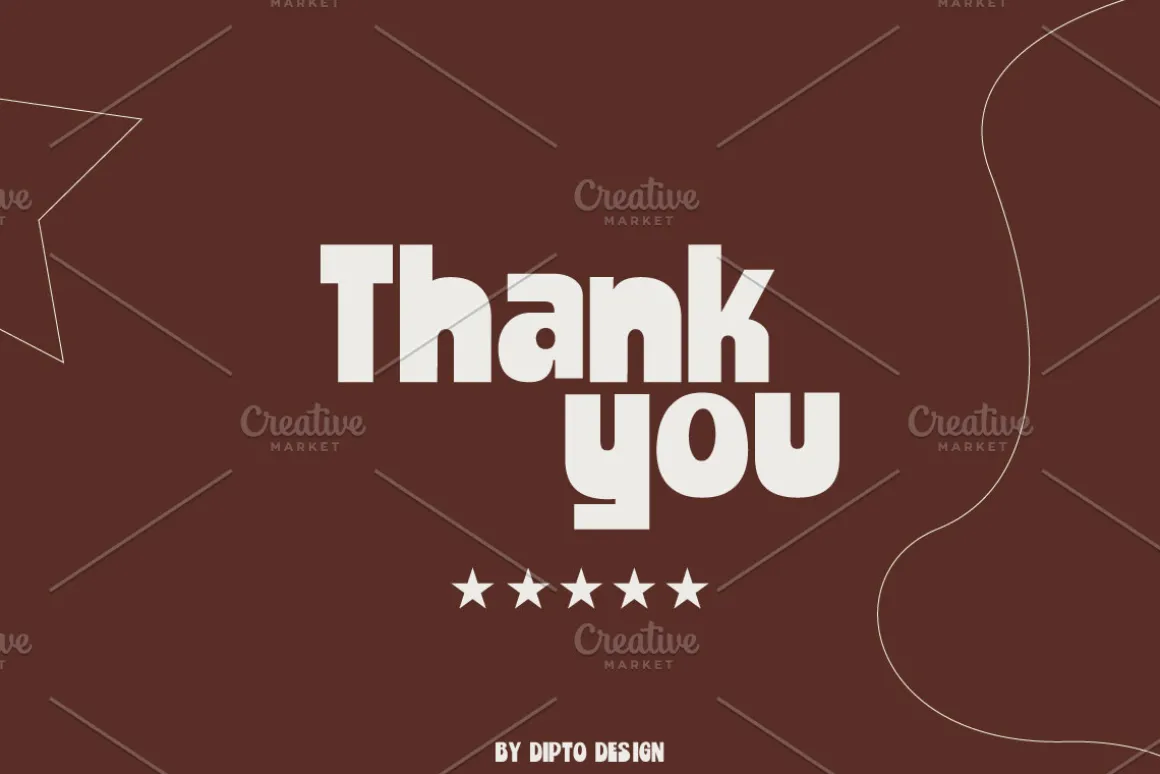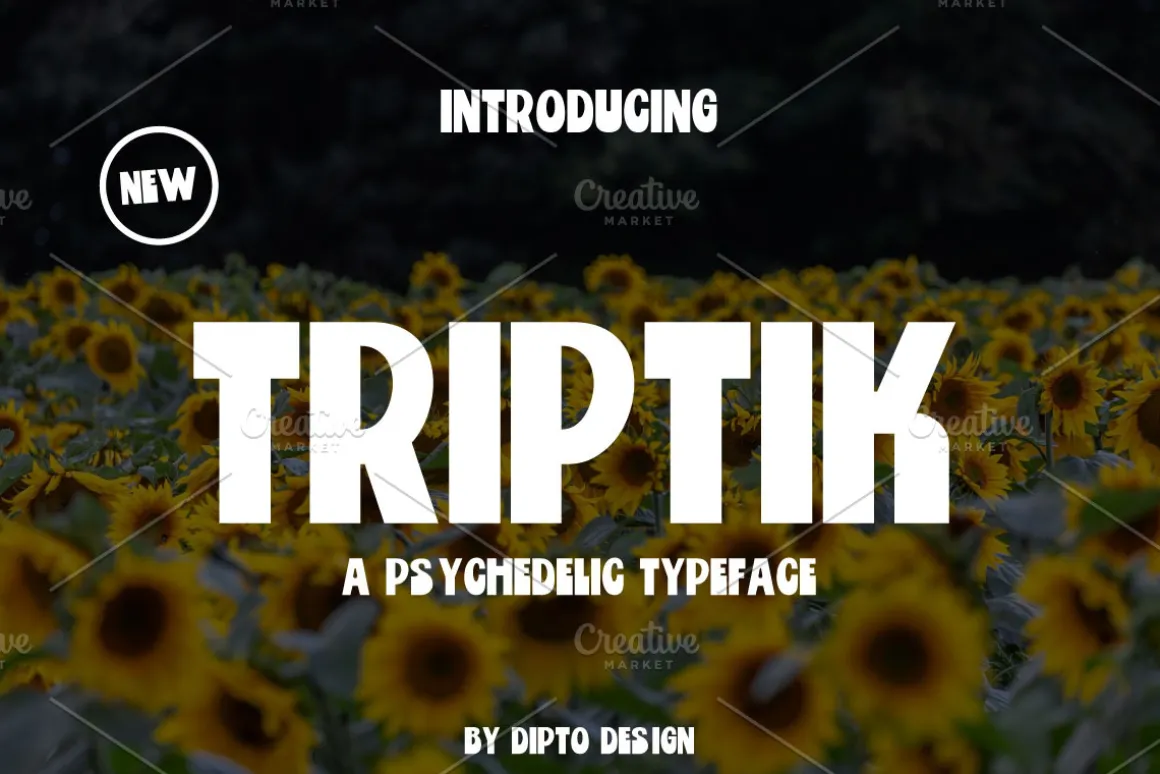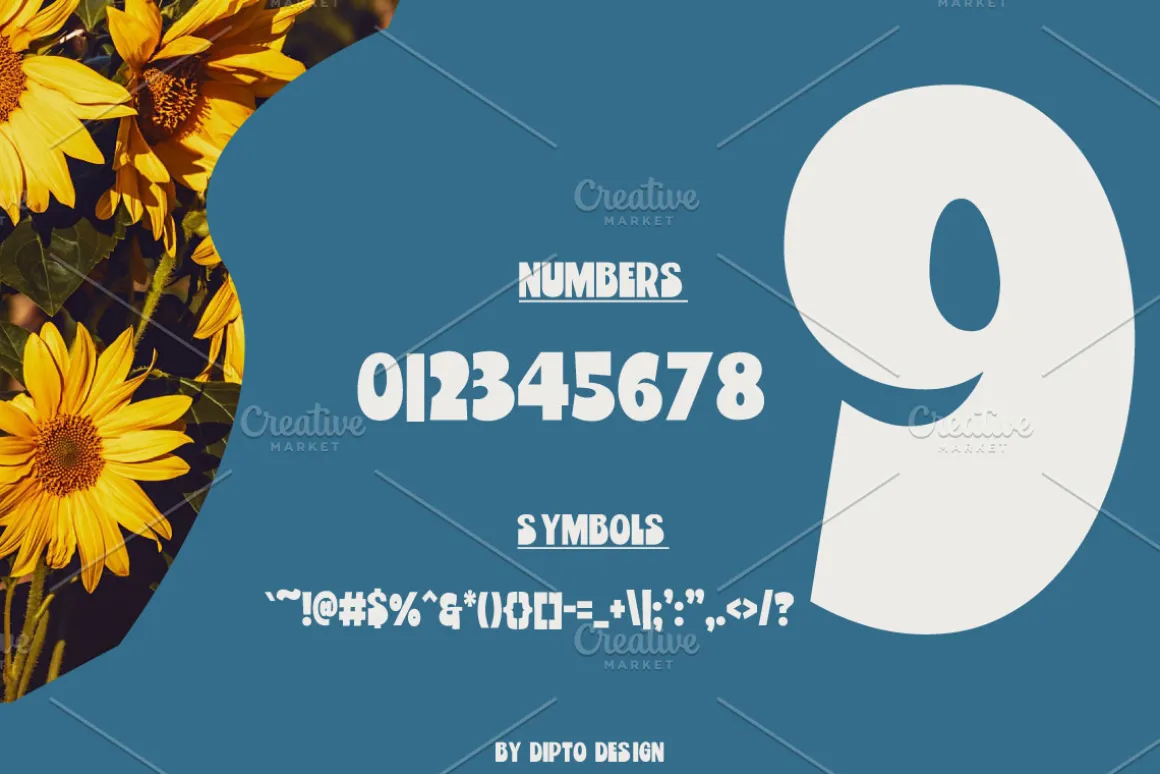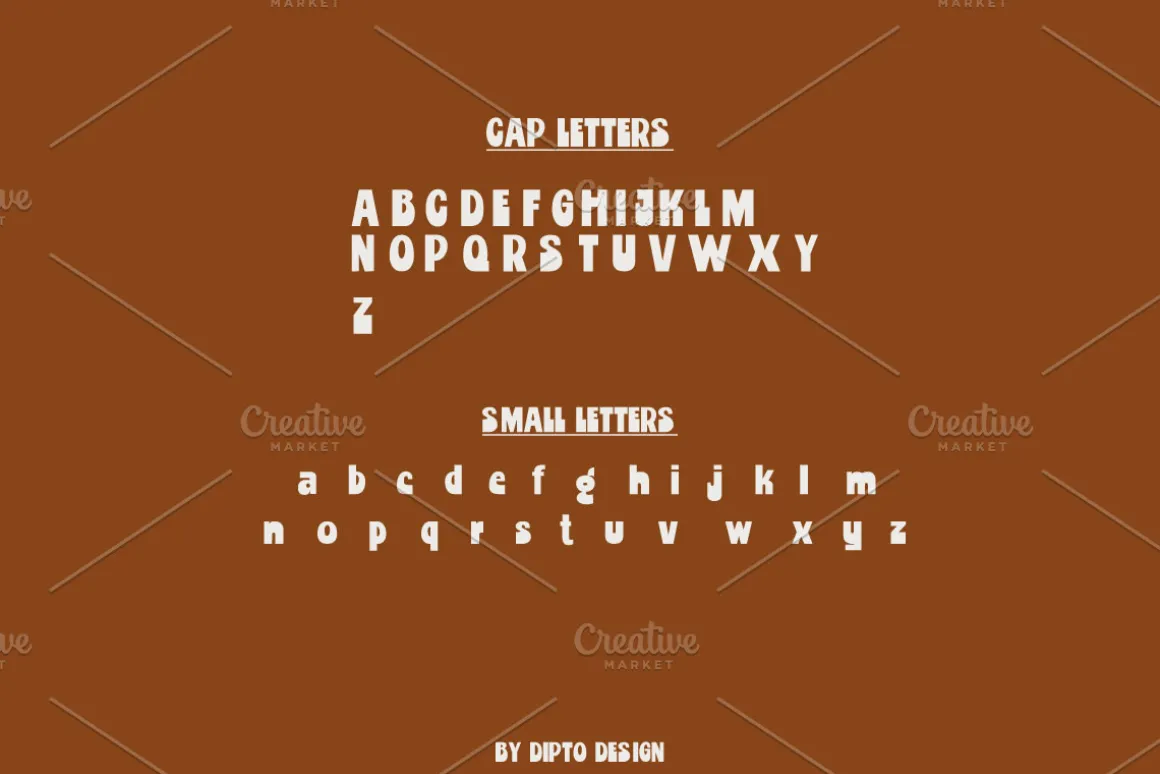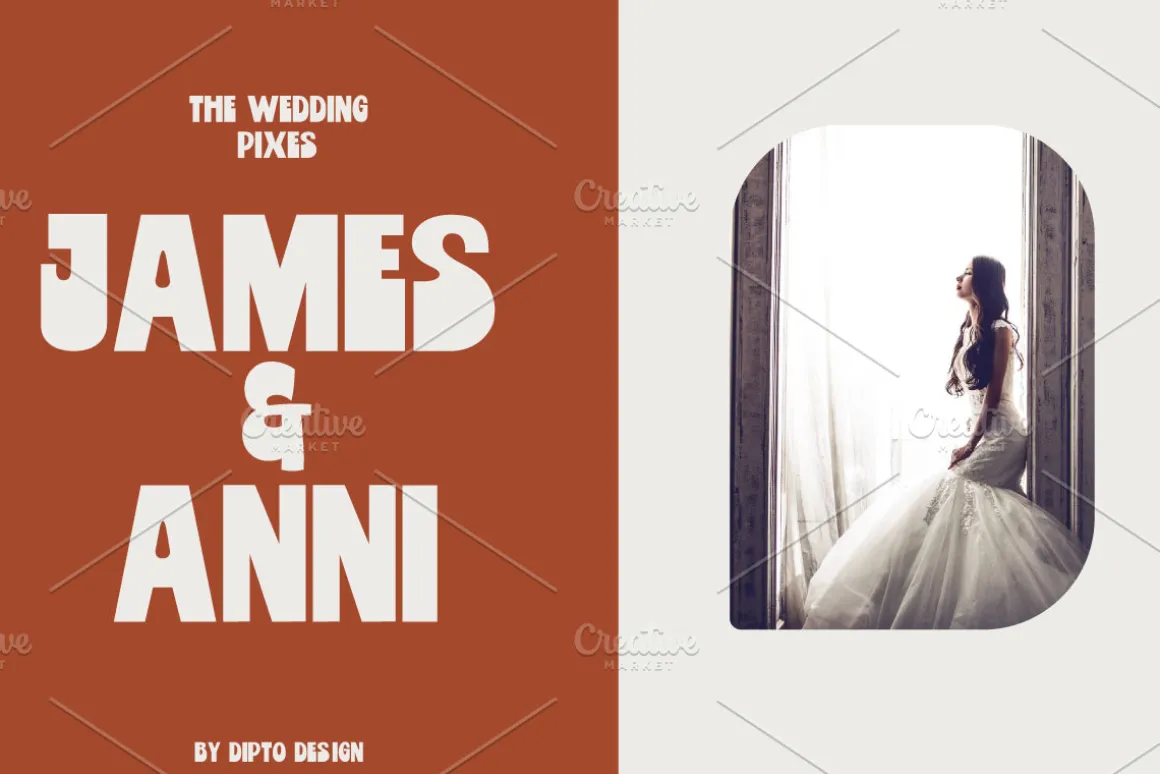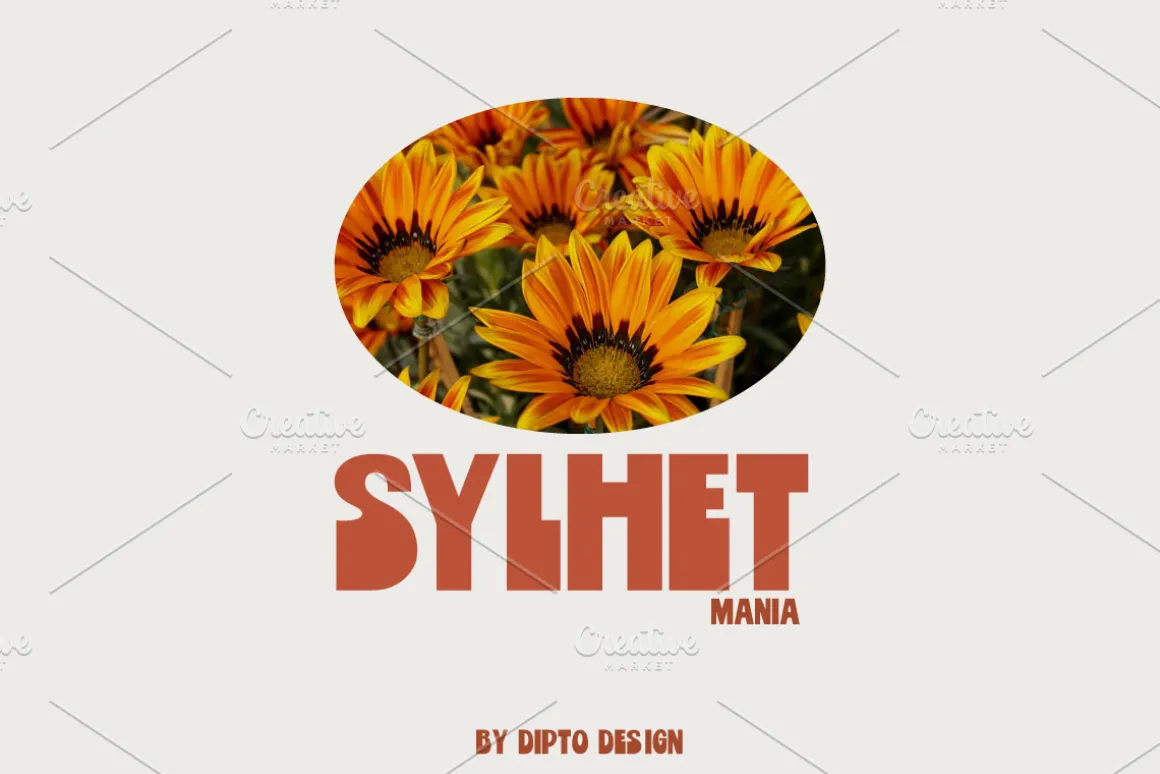
Triptik FONT, from Dipto Design, is suitable for any projects such as logos, branding projects, homeware designs, product packaging, mugs, quotes, posters, shopping bags, t-shirts, book covers, name cards, invitation cards, greeting cards, label, photography, watermark, special events, and all your other lovely projects that need a beautiful taste.